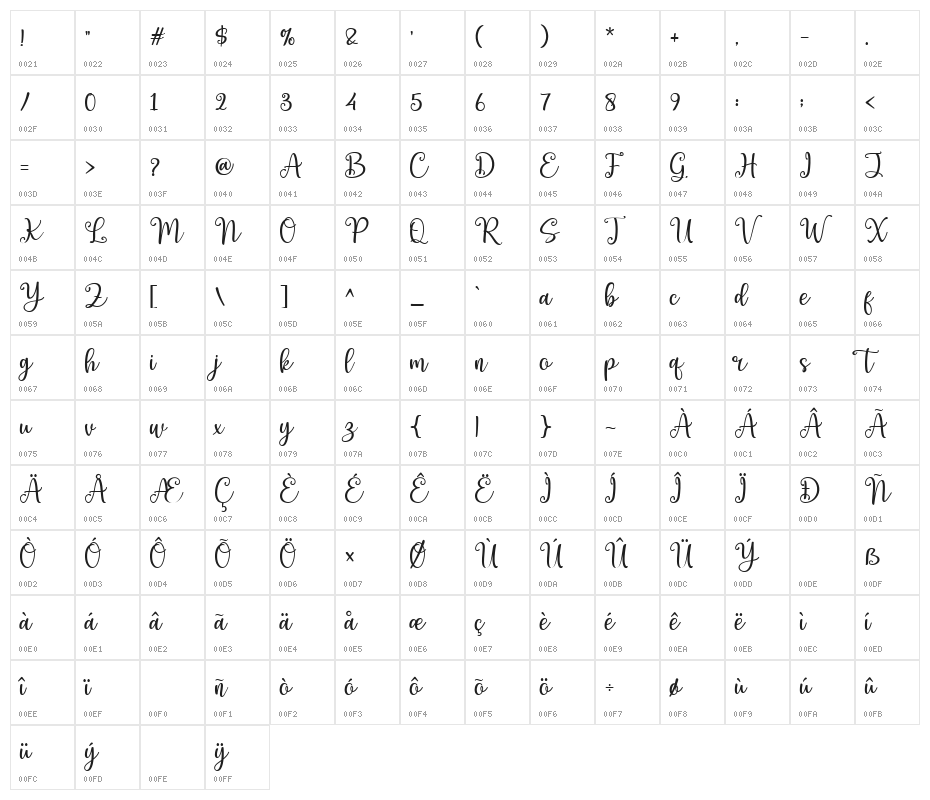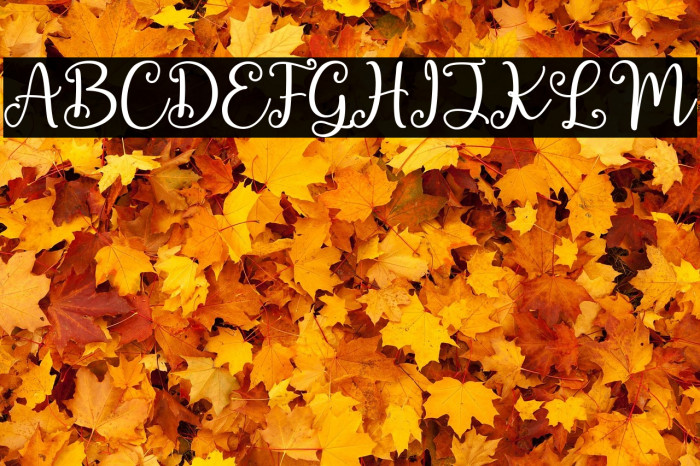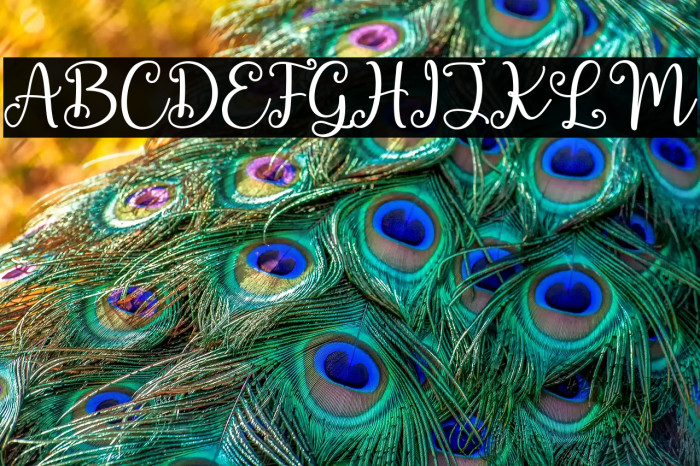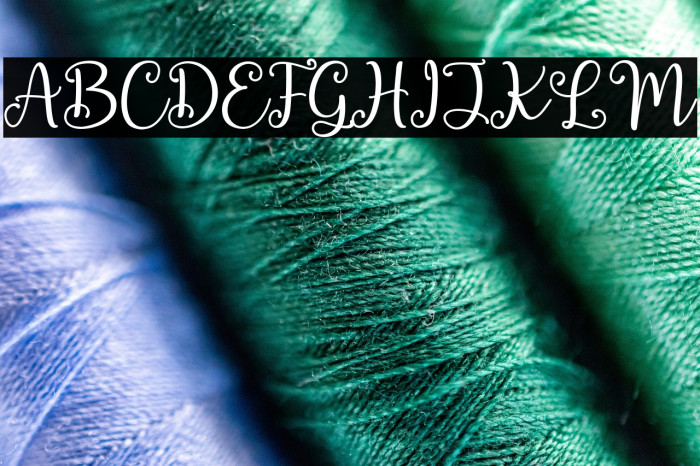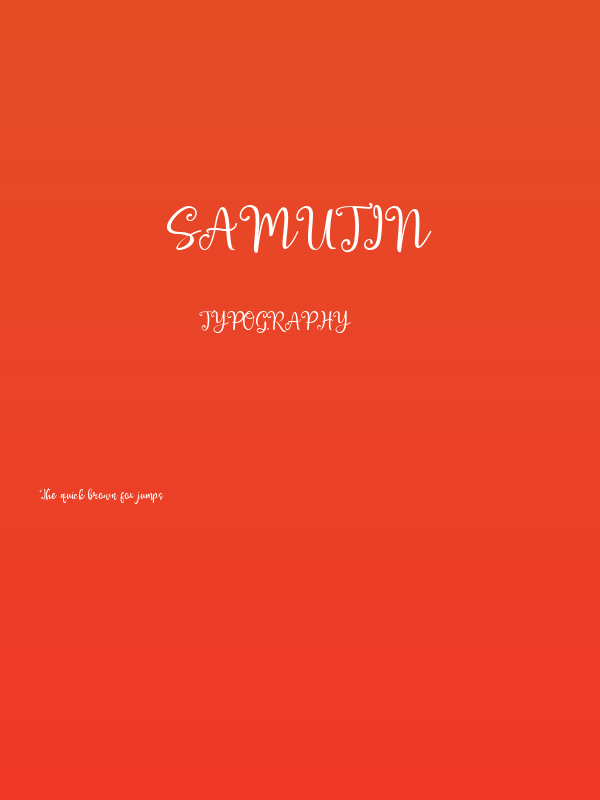
Samutin Font
Samutin Description
This font features a playful and elegant script style with a handwritten appearance. The uppercase letters are characterized by their decorative swirls and loops, adding a touch of sophistication and flair. The lowercase letters maintain a consistent flow, with smooth curves and a slightly informal feel. Numbers and special characters are designed to match the overall aesthetic, ensuring a cohesive look across all text elements. The font's style is both modern and timeless, making it suitable for a variety of design projects.
| Proposed Projects | Ideal for wedding invitations, greeting cards, logos, and branding materials that require a touch of elegance and personality. |